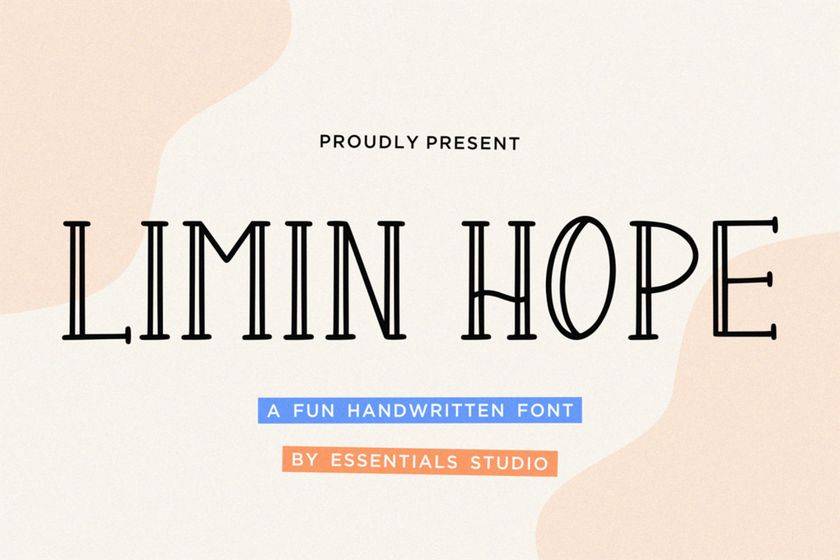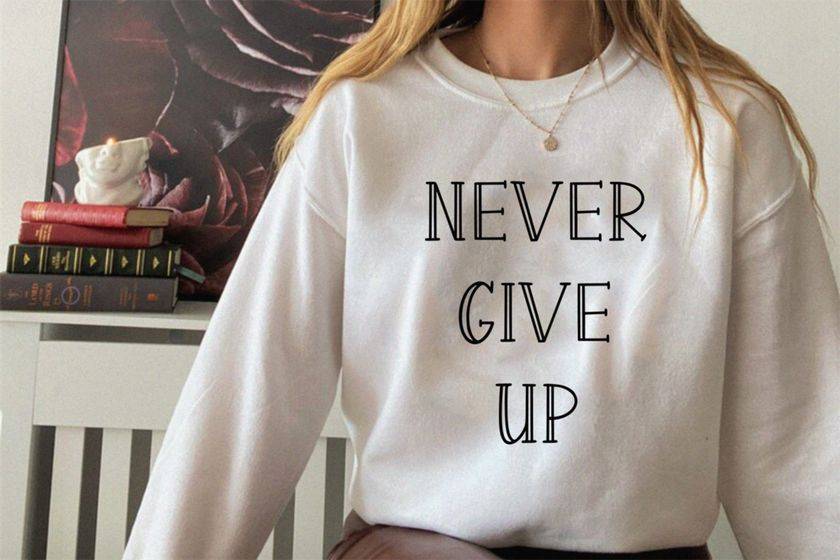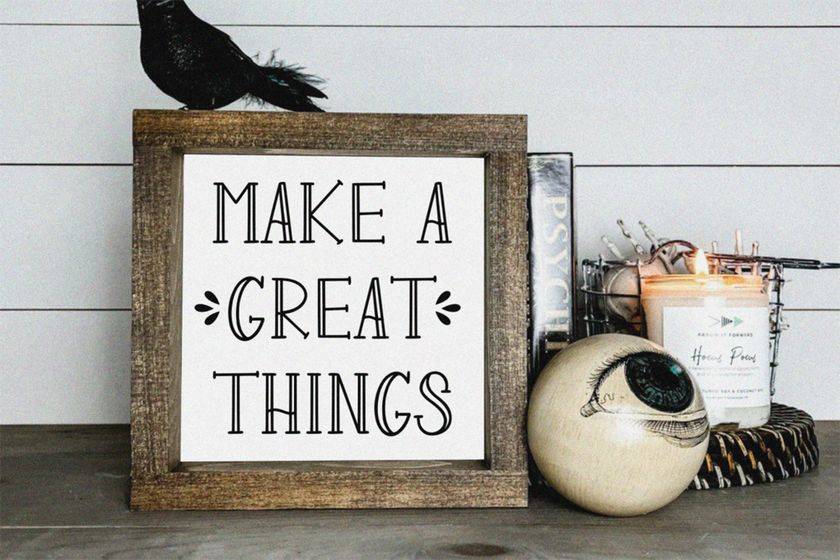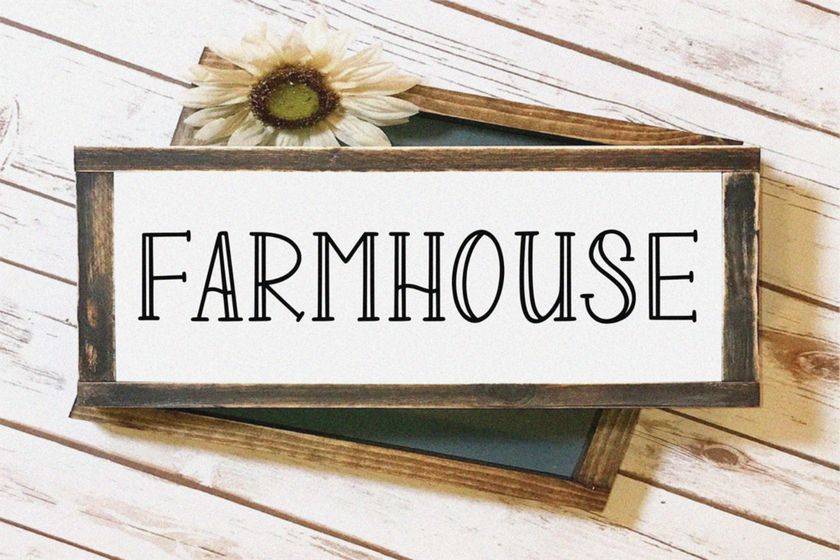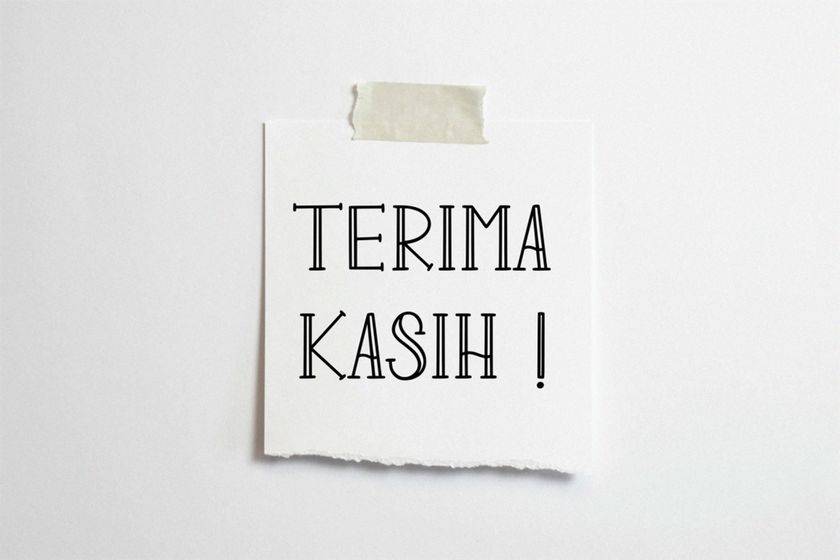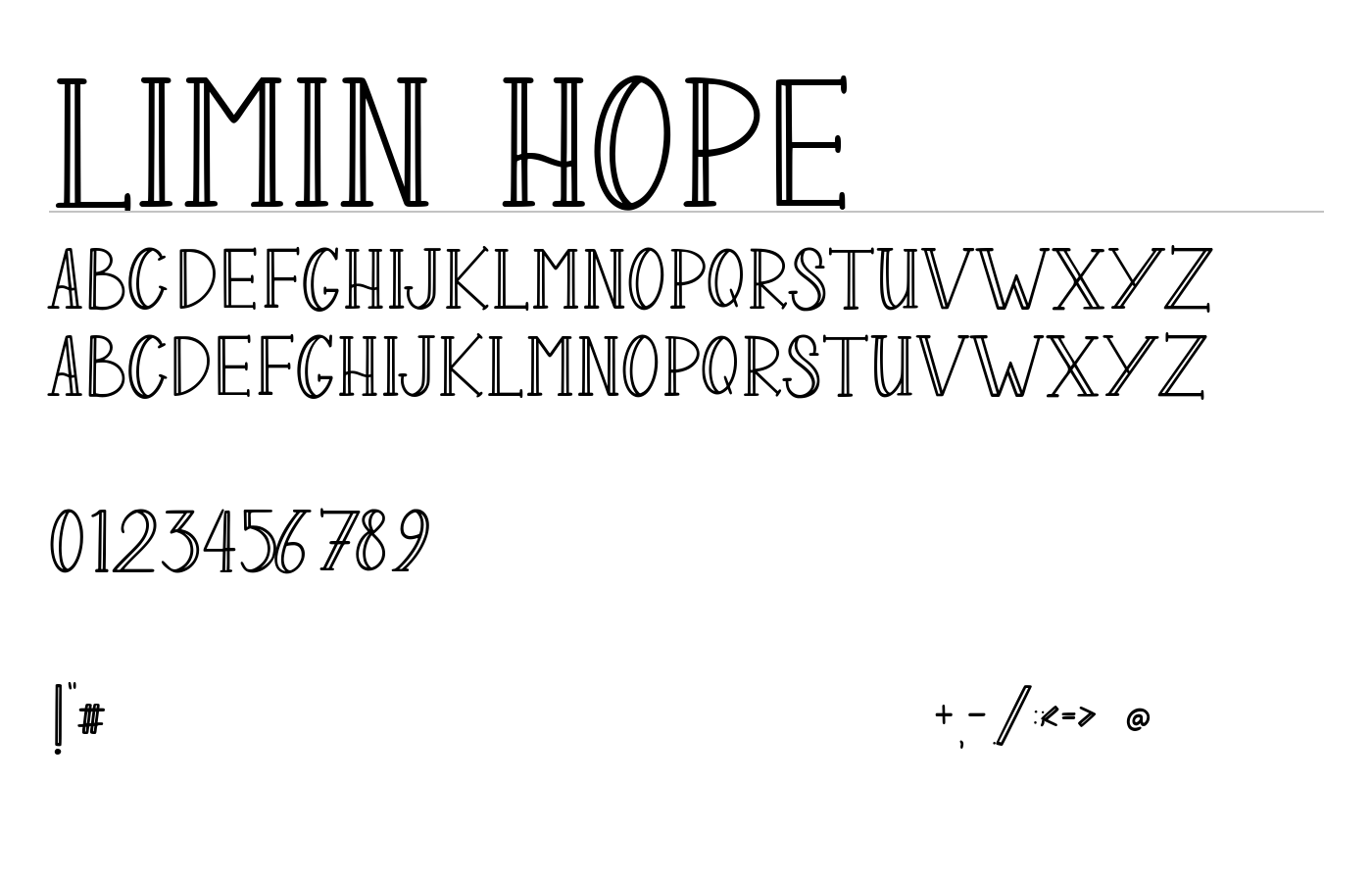
Limin Hope is a slender, tall serif font with a charming vintage vibe, featuring narrow letterforms and delicate, thin serifs that give it a refined, slightly whimsical look. Its elegant, high-contrast strokes and playful details make it ideal for stylish headlines, invitations, and branding that seek a graceful yet distinctive personality. This font works best where a touch of classic sophistication mixed with a unique flair is desired, such as in fashion, luxury packaging, or editorial design.
Limin Hope Font
About Limin Hope Font
| Font family | Limin Hope Font |
| Release date | 2022-08-01 |
| Designer | Sulthan Mada Maulana Tsani |